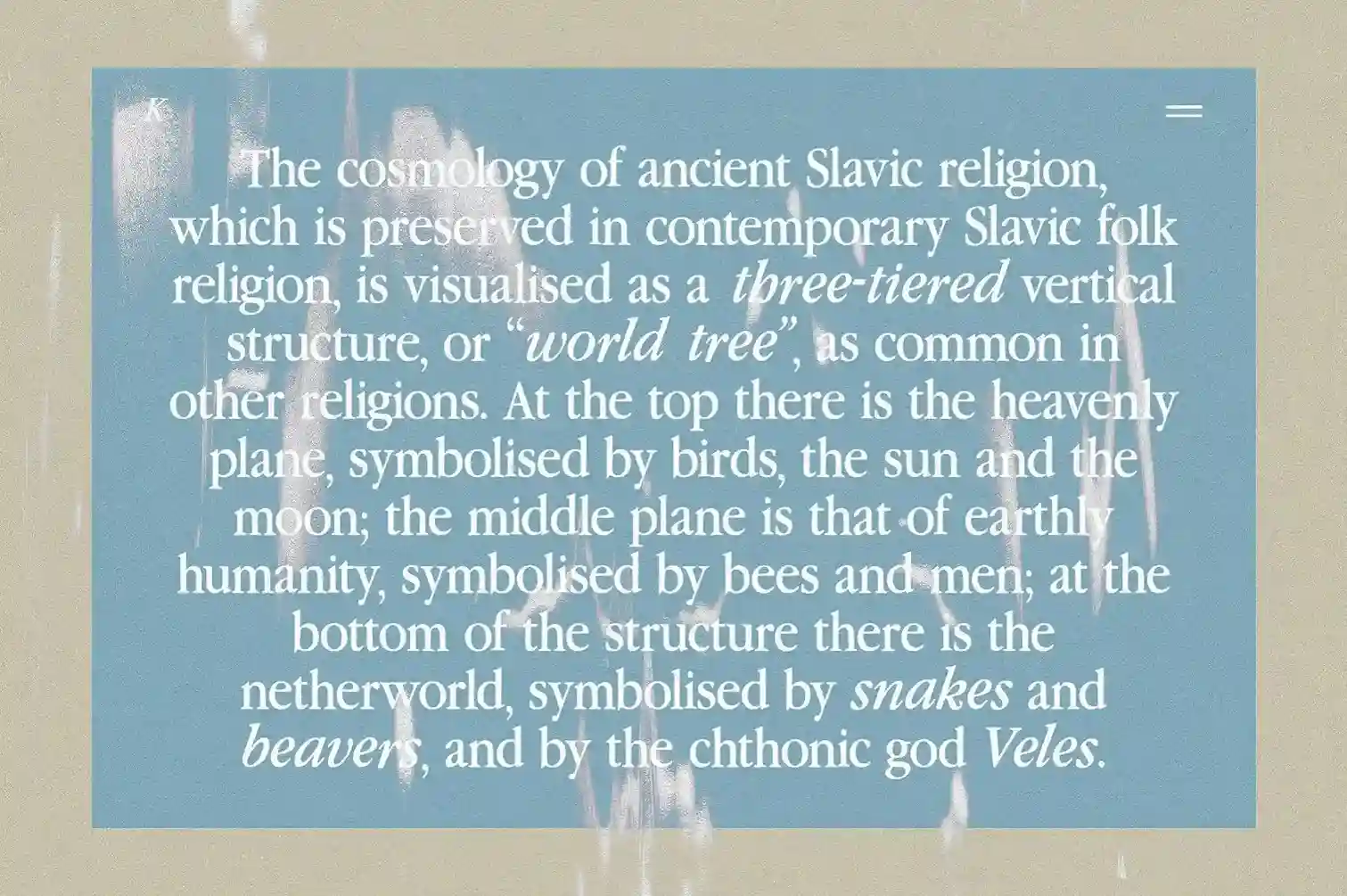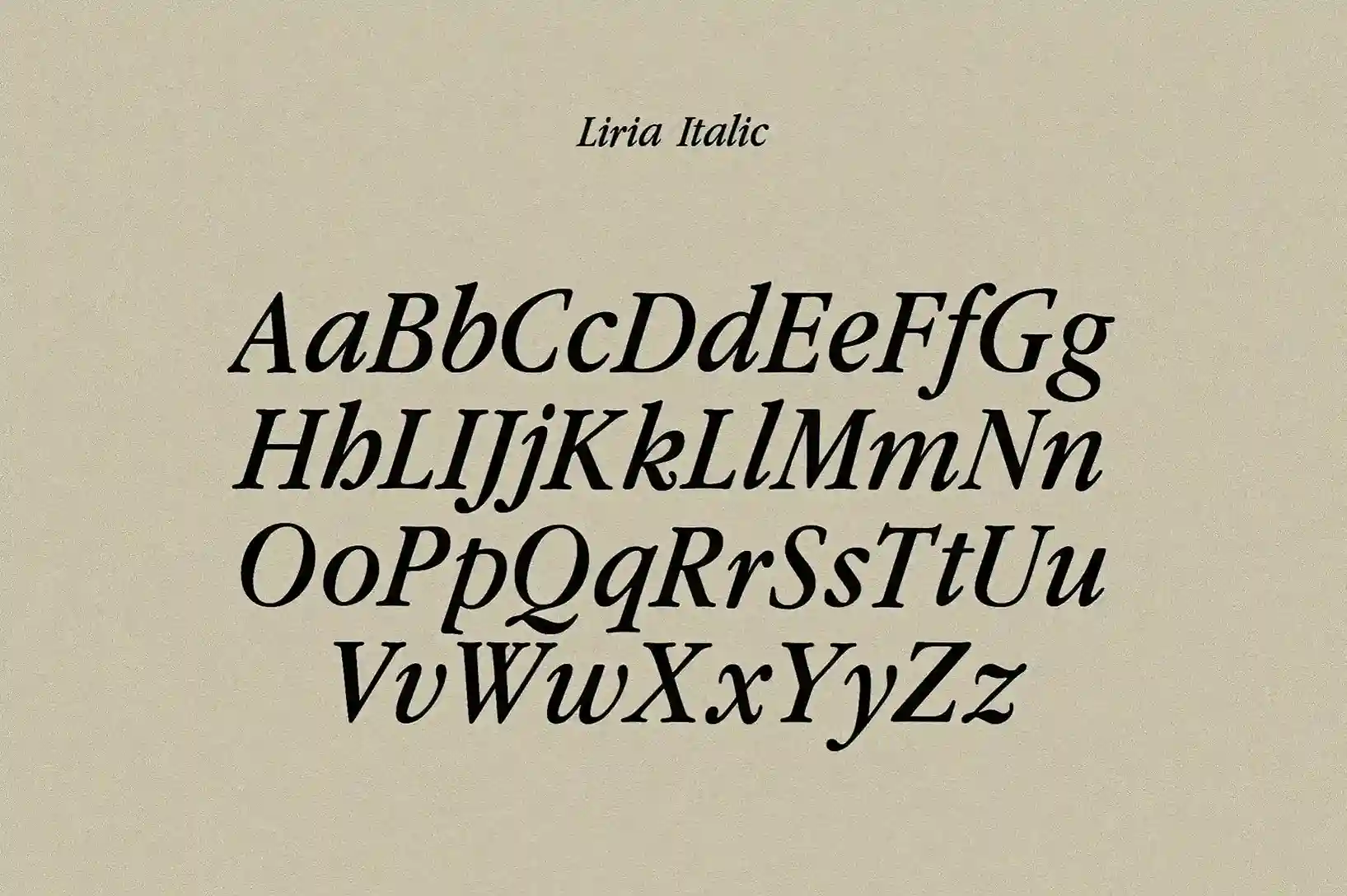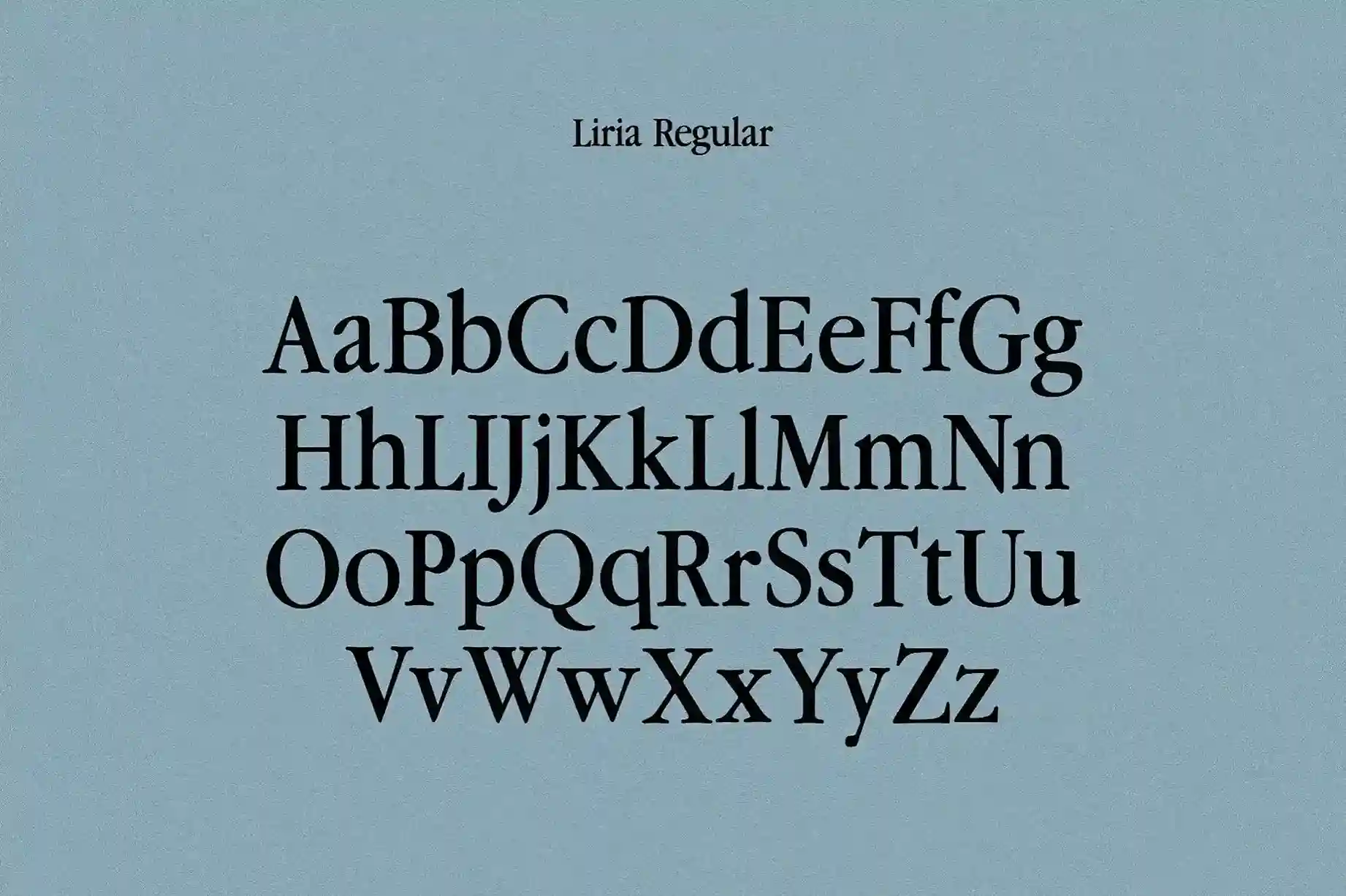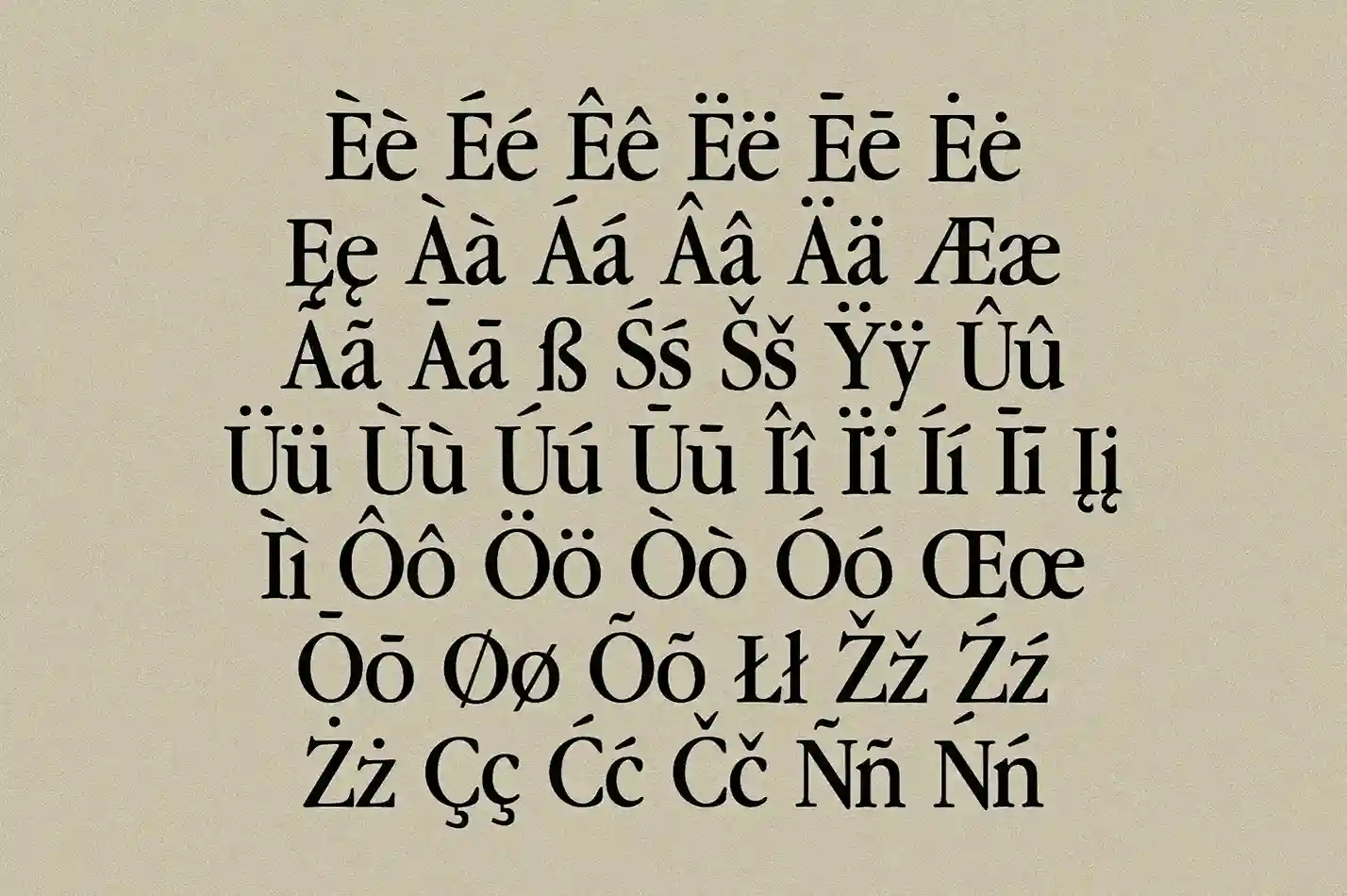
Liria Serif Typeface
Step into the elegance of the 90s magazine era with Liria Serif Typeface, a stylish serif font with rounded serifs and a warm, inviting aesthetic. Designed for editorial layouts, branding, and modern typography, Liria blends nostalgia with contemporary versatility, making it perfect for both print and digital designs.
Why Choose Liria Serif Typeface?
• 90s-Inspired Elegance – A timeless serif with vintage magazine aesthetics.
• Smooth, Rounded Serifs – Creates a soft, sophisticated look.
• Full Character Set – Includes uppercase, lowercase, numerals, and punctuation.
• Multilingual Support – Designed for global projects with extensive language coverage.
• Perfect for Print & Digital – Ideal for editorial layouts, logos, invitations, and web design.
Best Uses for Liria Typeface:
• Magazine & Editorial Design – Inspired by classic 90s publications.
• Luxury Branding & Packaging – Adds an elegant and warm touch.
• Website & Social Media Graphics – Stylish typography for a modern aesthetic.
• Posters, Invitations & Book Covers – Perfect for standout print designs.
With its refined letterforms and soft curves, Liria Serif Typeface is a must-have for designers looking to elevate their typography with a touch of vintage charm. Whether you’re working on branding, editorial work, or creative projects, Liria delivers timeless elegance with a modern edge.